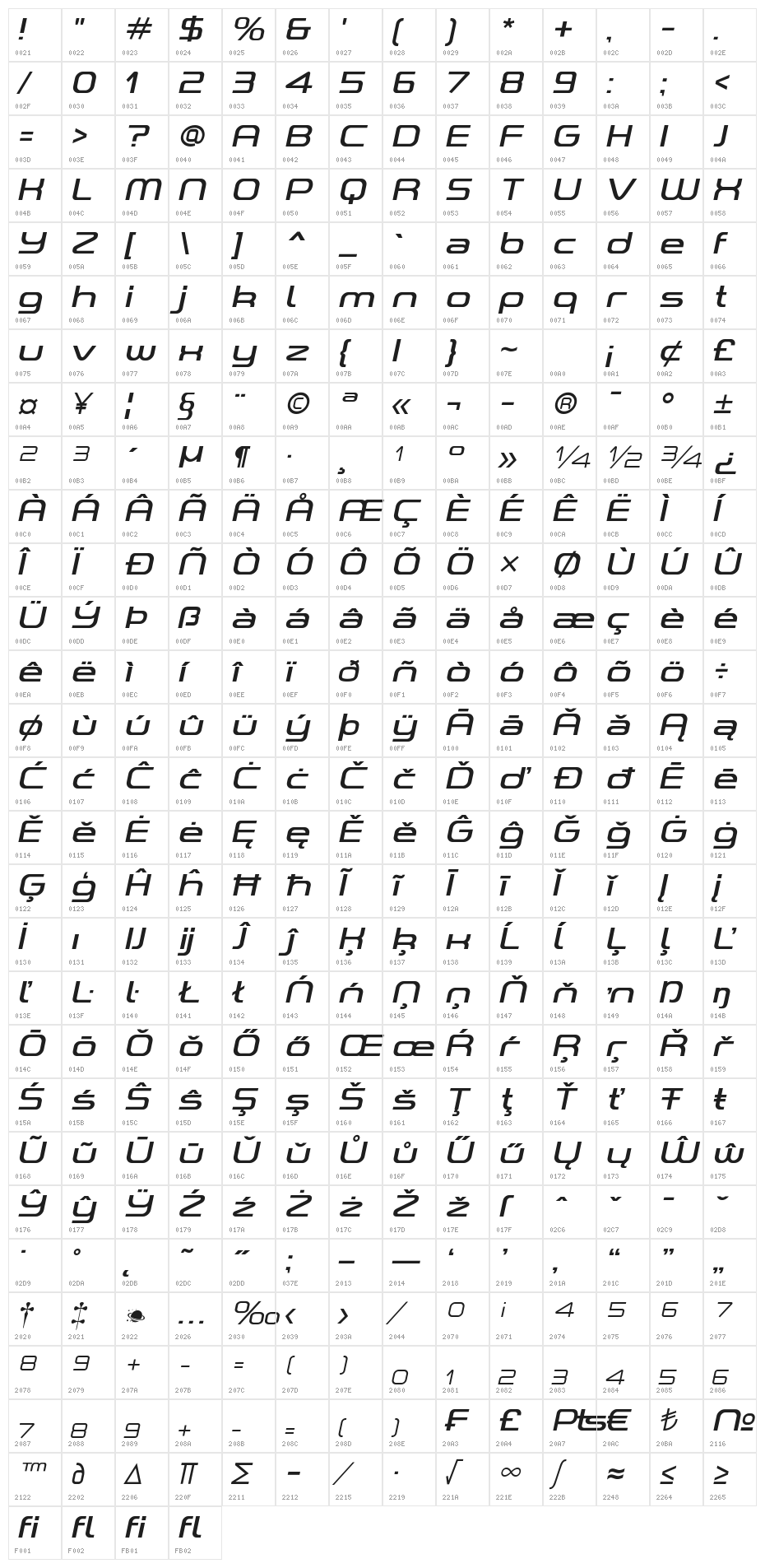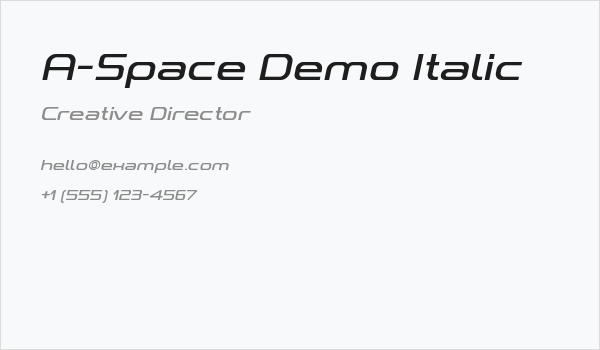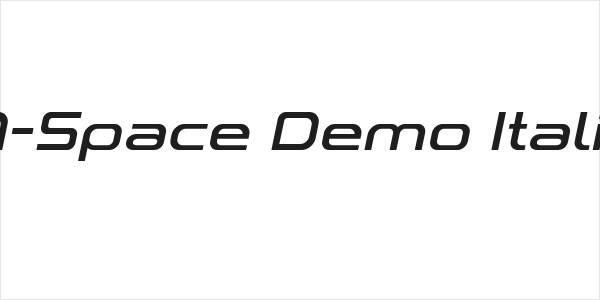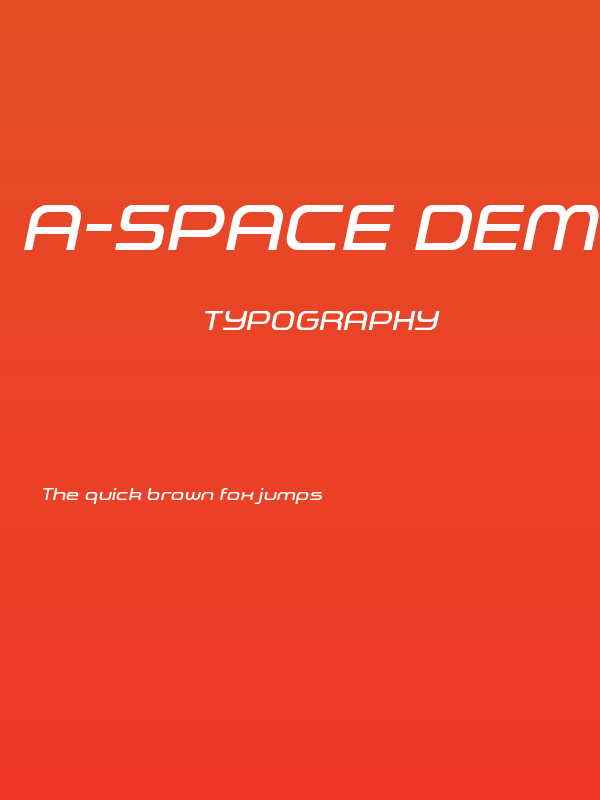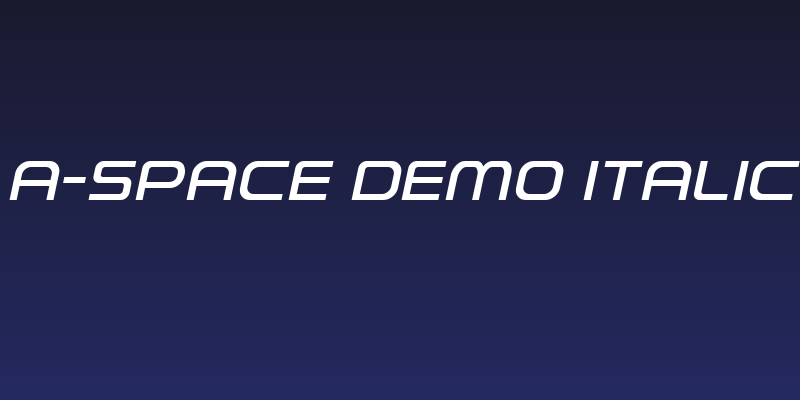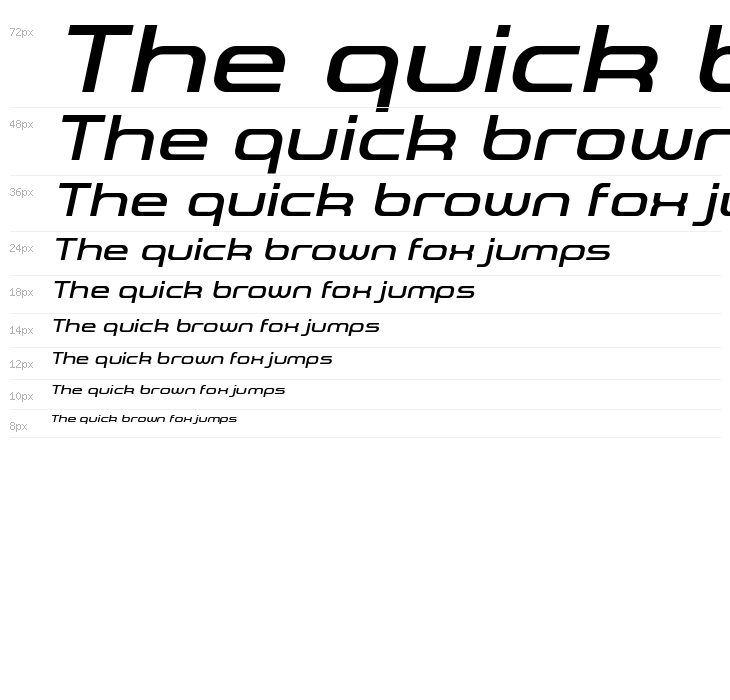
A-Space Demo Italic Font
A-Space Demo Italic Description
This font features a sleek, modern design with a futuristic flair. The characters are slightly italicized, giving a sense of motion and speed. The strokes are consistent in weight, providing a uniform appearance across all characters. The font maintains a clean and minimalistic aesthetic, making it suitable for contemporary designs. The uppercase and lowercase letters are well-proportioned, and the numerals are clear and easy to read. Special characters are designed with the same attention to detail, ensuring a cohesive look throughout.